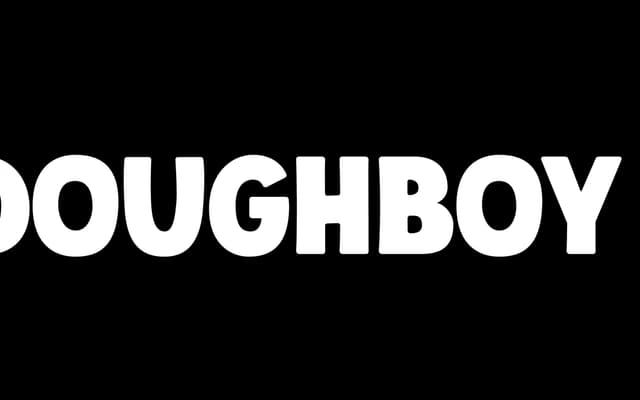
A chunky, rounded display face built for bold logotypes, loud headlines and typographic executions with a soft, characterful presence.
Doughboy is a soft, voluminous display face designed to fill space with visual weight and personality. The rounded forms suit logotype work, poster headlines and bold typographic statements where warmth and bulk are the priority. Glyph coverage extends into Latin Extended for broader language support.
A chunky, rounded display face with a soft, personality-driven aesthetic; fits the display category with no apparent text-weight applications.